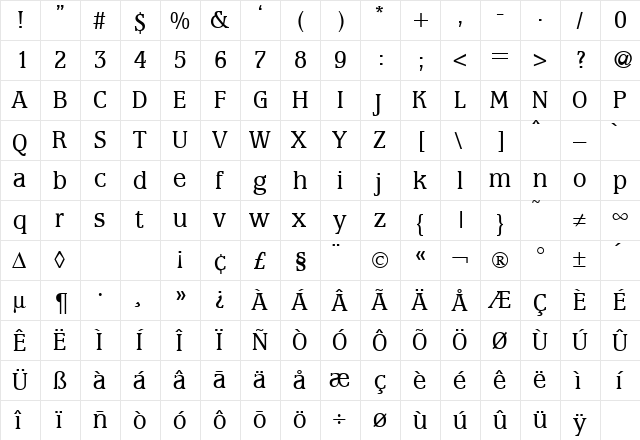
Marburg Regular
Design Context for Marburg Typeface
Marburg takes a measured approach to typography — its balanced proportions and neutral character make it a reliable workhorse for both digital and print work.